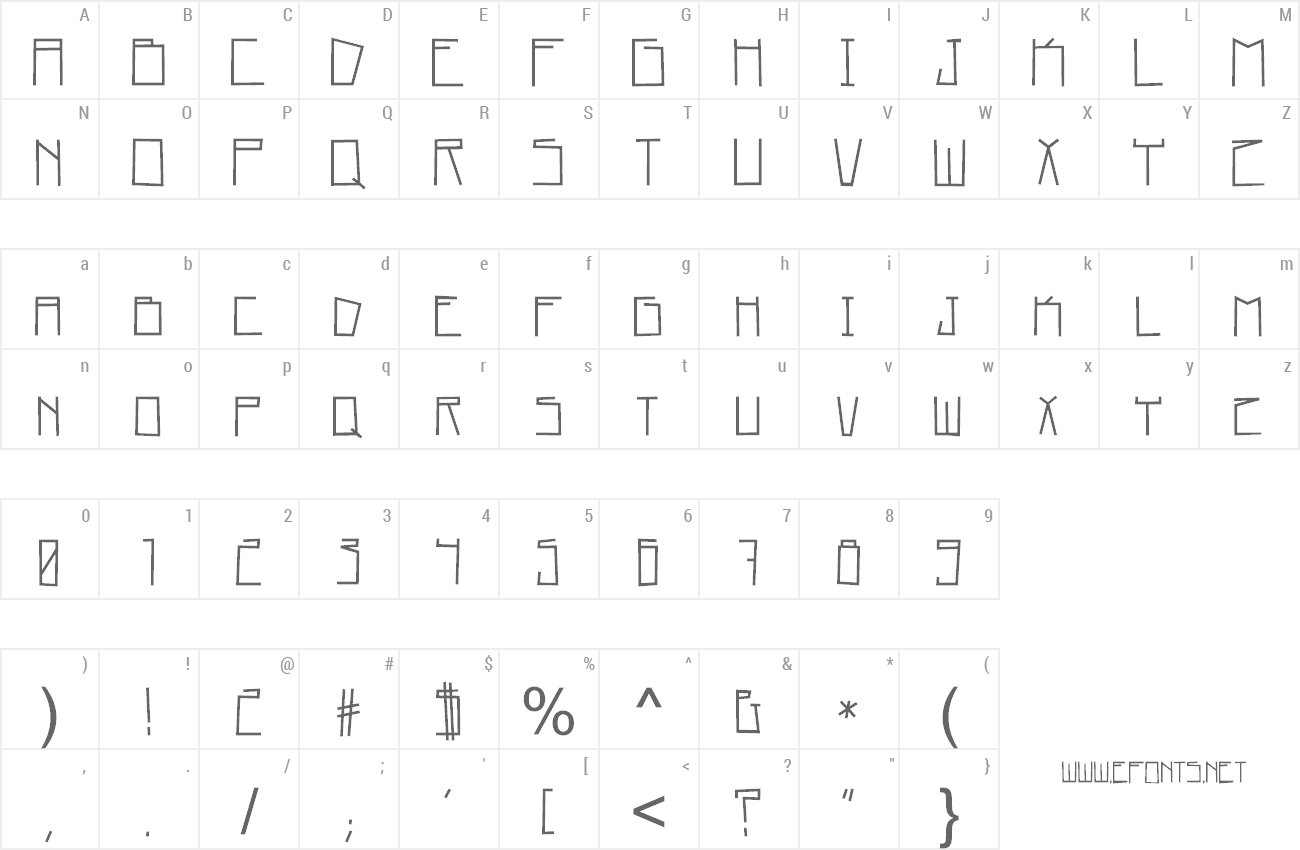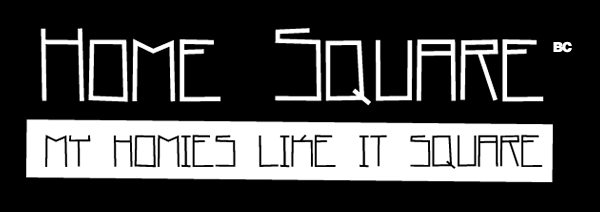
| Font name: | Home Square |
For all your hiphop / rap graphics needs, Home Square is what my homies like. This font is good for tagging, spraying, displaying your name and your message. Spread the word: Peace, Love, Unity! If you want to use it in commercial purpose please purchase a license here: http://www.revolge.com/product/home-square-font/ Or contact me on bc(at)vnbc.fr |